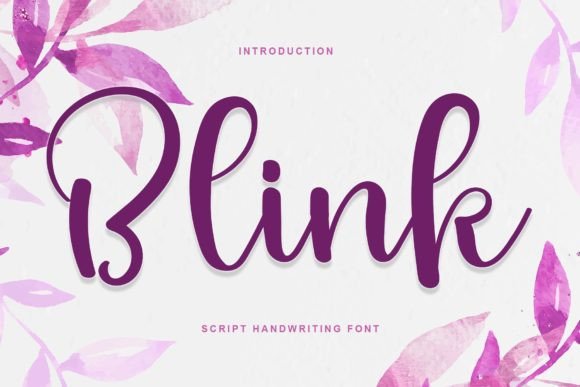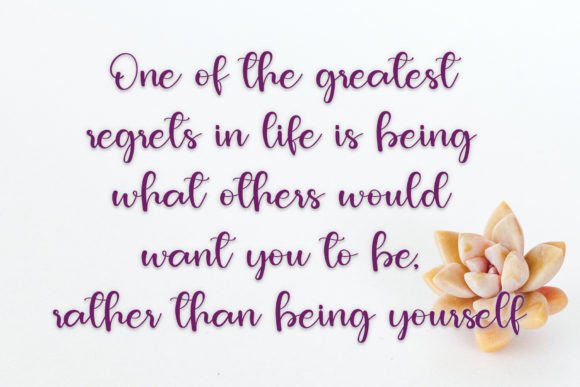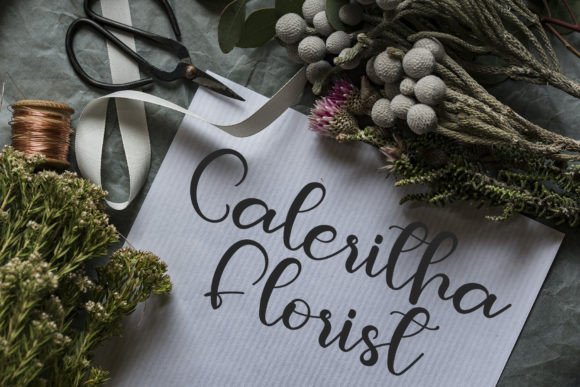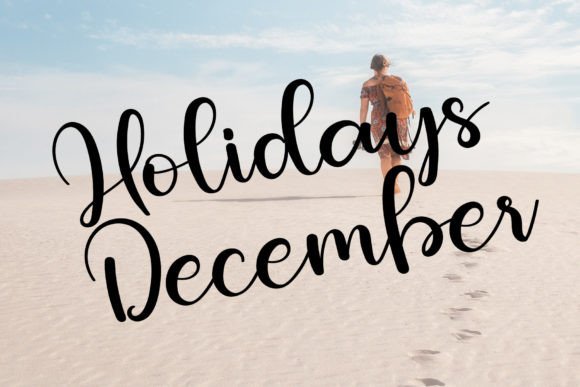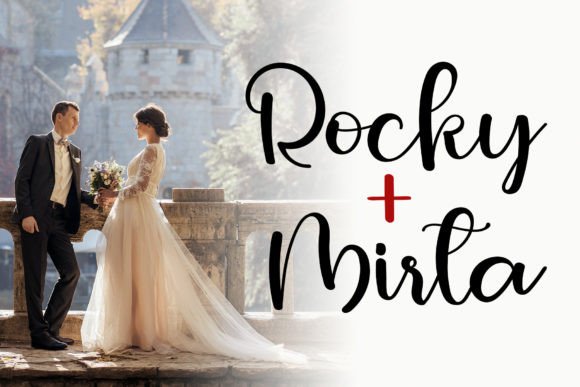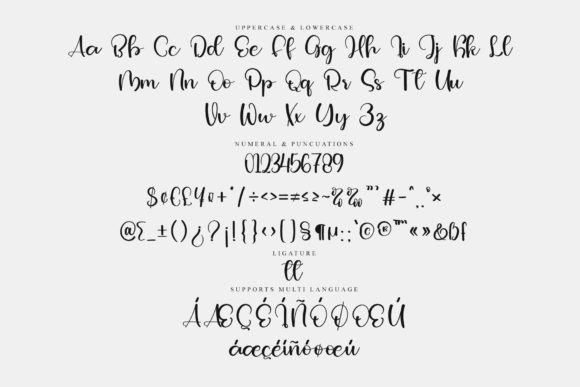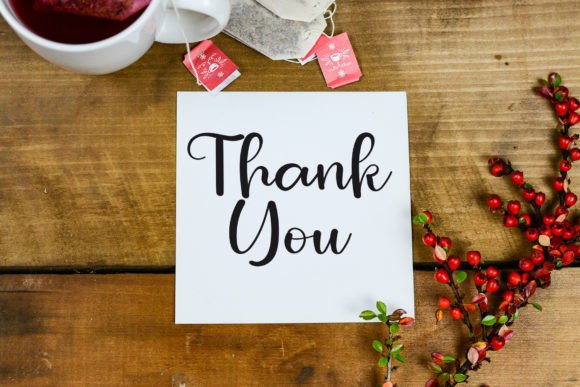
Blink Font
About Blink Font
Blink font is a stylish handwritten typeface that beautifully combines the elegance of timeless classic calligraphy with a fresh, contemporary atmosphere. Its impeccable form and well-balanced characters make it an excellent choice for designers aiming to enhance the visual appeal of their projects with a refined handwritten touch.
Elegant Inspiration from Classic Calligraphy
Drawing inspiration from traditional calligraphy, Blink font features graceful curves and sophisticated strokes. This font’s design brings a sense of heritage and artistic craftsmanship, while its modern styling keeps it relevant for today’s creative needs. As a result, Blink offers a harmonious blend of old-world charm and contemporary flair.
Versatile Use for Multiple Projects
Blink font is ideal for a wide range of design applications. It works wonderfully for wedding invitations, greeting cards, branding, logos, editorial layouts, and social media graphics. Its balanced and varied letterforms ensure that your text remains clear and visually engaging, whether used in headlines or body text.
A Perfect Balance of Beauty and Function
Blinkfont achieves a great balance between style and readability. The carefully crafted shapes and varied letter heights add visual interest, while maintaining legibility across different sizes and formats. This makes it suitable for both print and digital designs.